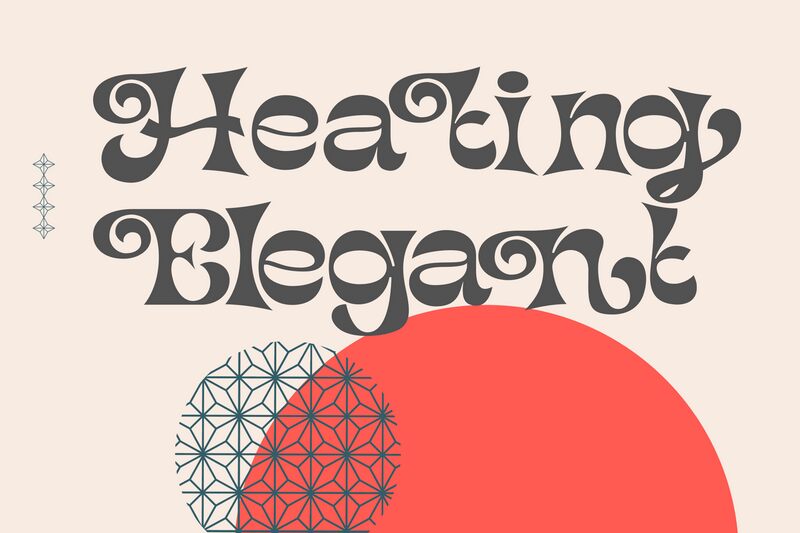
Heating Elegant, designed by 177Studio, is a groovy semi-bold display font with a semi-expanded width that adds an elegant touch to any design project. This font is perfect for creating eye-catching headers, posters, logos, and branding materials. Its smooth curves and unique letterforms give off a luxurious vibe that is perfect for high-end fashion brands or upscale restaurants. On the other hand, Heating Elegant can also be used for retro-themed designs that require a touch of nostalgia. With its versatility and sophistication, this font will surely elevate any creative project you have in mind.